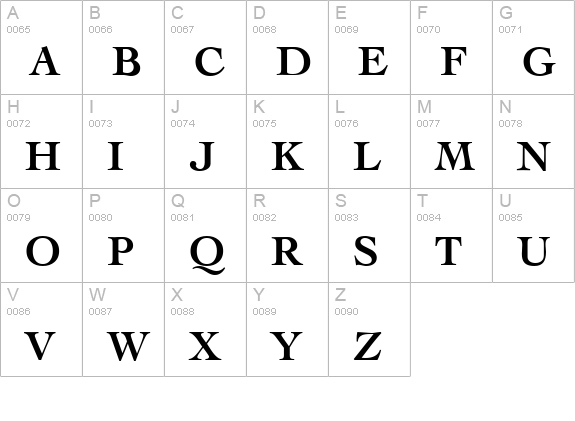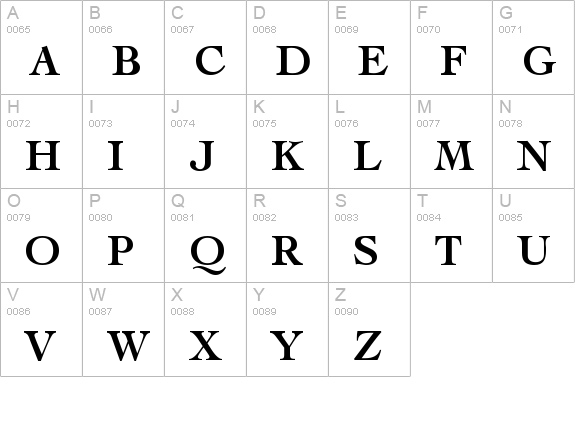
Cockney-Bold is a strong, high-contrast variant in the Cockney typeface family \xE2\x80\x94 well suited to headlines, attention-grabbing titles, and strong calls-to-action.
Introducing Cockney-Bold font, a bold and striking typeface that exudes confidence and character. With its clean lines and distinctive flair, this font is perfect for making a statement in any design project. Whether you're looking to add a touch of boldness to your branding, posters, or social media graphics, Cockney-Bold font is sure to catch the eye and leave a lasting impression. The best part? Cockney-Bold font is available for free download at FontsMarket.com. That's right, you can easily access this stylish font and elevate your designs without breaking the bank. So why wait? Add a touch of Cockney-Bold to your next project and watch it come to life with style and sophistication.